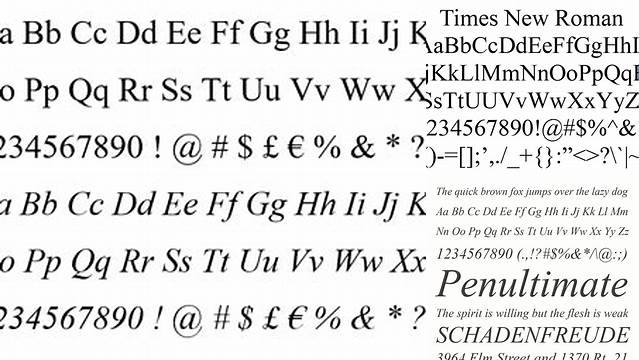
Times New Roman Font: The Basics and Beyond
Times New Roman – the name itself whispers of tradition, reliability, and a certain professional flair. For years, it's been the go-to font for everything from academic papers to official documents. But what's the story behind this ubiquitous typeface? And why does it hold such a special place in the world of typography? Let's unpack it all. The origin story of Times New Roman begins in the early 1930s. Stanley Morison, a renowned typographer, collaborated with the Monotype Corporation to create a new font for the British newspaper The Times. The goal was clear: to develop a typeface that was both legible and space-efficient, allowing the newspaper to pack more text onto each page. The result was Times New Roman, first introduced in 1932. Its design was a significant departure from the more ornate fonts that were common at the time. Morison and his team crafted a font with serifs, those small strokes at the ends of the letters, which enhanced readability, especially in the small sizes used in newspapers. The letterforms were carefully balanced, ensuring that individual characters and words were easily distinguishable, even at a glance. This was crucial for the fast-paced world of journalism. Over the years, Times New Roman has become much more than just a newspaper font. Its versatility and clear design made it a favorite for a wide range of applications. From books and magazines to official reports and academic publications, Times New Roman has proven its worth as a dependable and professional choice. This is a serif typeface, meaning it has small decorative strokes at the end of the letters. The serifs help guide the reader's eye across the page, making it easier to read large blocks of text. The font's proportions are well-balanced, with a moderate contrast between thick and thin strokes. This balance makes it both elegant and practical. Moreover, its widespread use means it is readily available on most computers, making it easy to use and share documents. This universal accessibility is a major reason why Times New Roman remains a popular choice today. Think about all the documents you've encountered that use this font: from books to reports to school assignments. This familiarity contributes to its sense of authority and trustworthiness. Despite the rise of newer, more modern fonts, Times New Roman continues to be a workhorse, proving that classic design never goes out of style. The history of this font is a testament to the power of thoughtful design and its enduring impact on the way we communicate. Its blend of legibility, versatility, and universal accessibility has made it an indispensable tool for writers, designers, and anyone who needs to present text in a clear and professional manner. The enduring popularity of this font reminds us that sometimes, the best designs are the ones that stand the test of time. This is the font we all know and love, and for good reason.